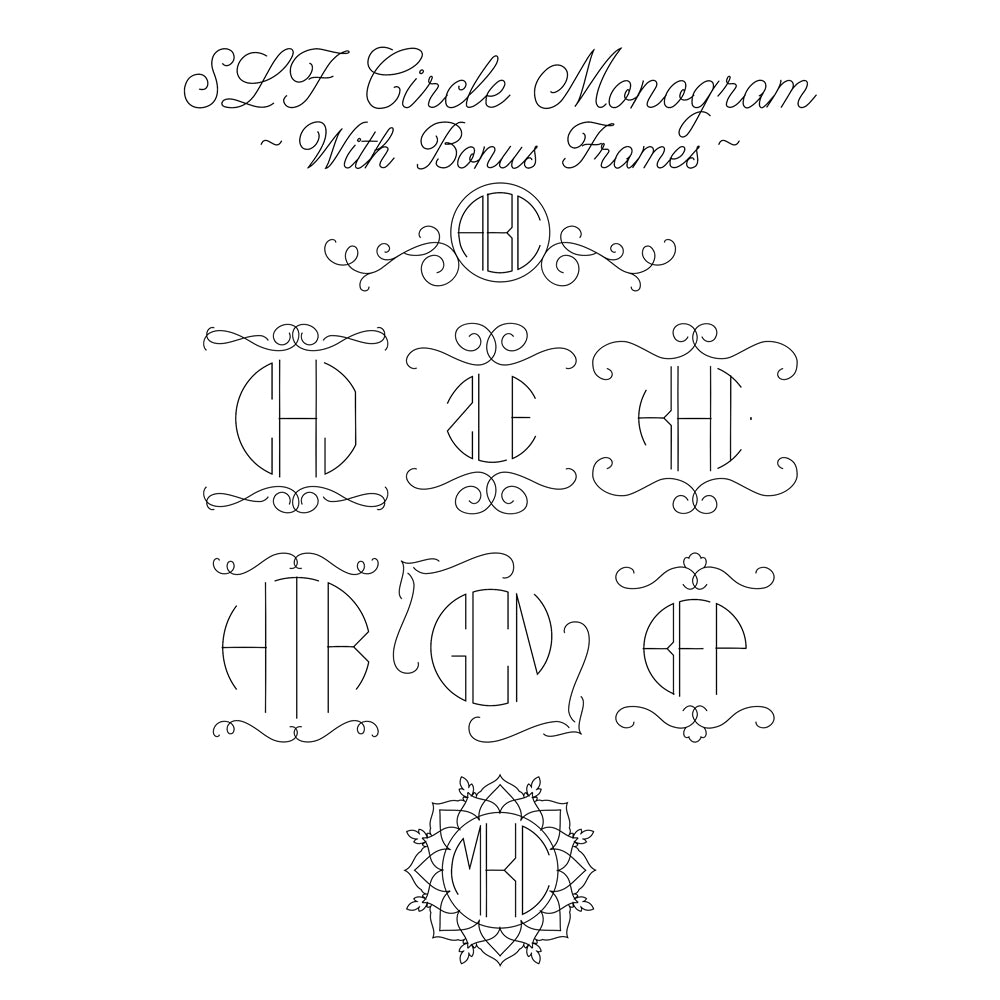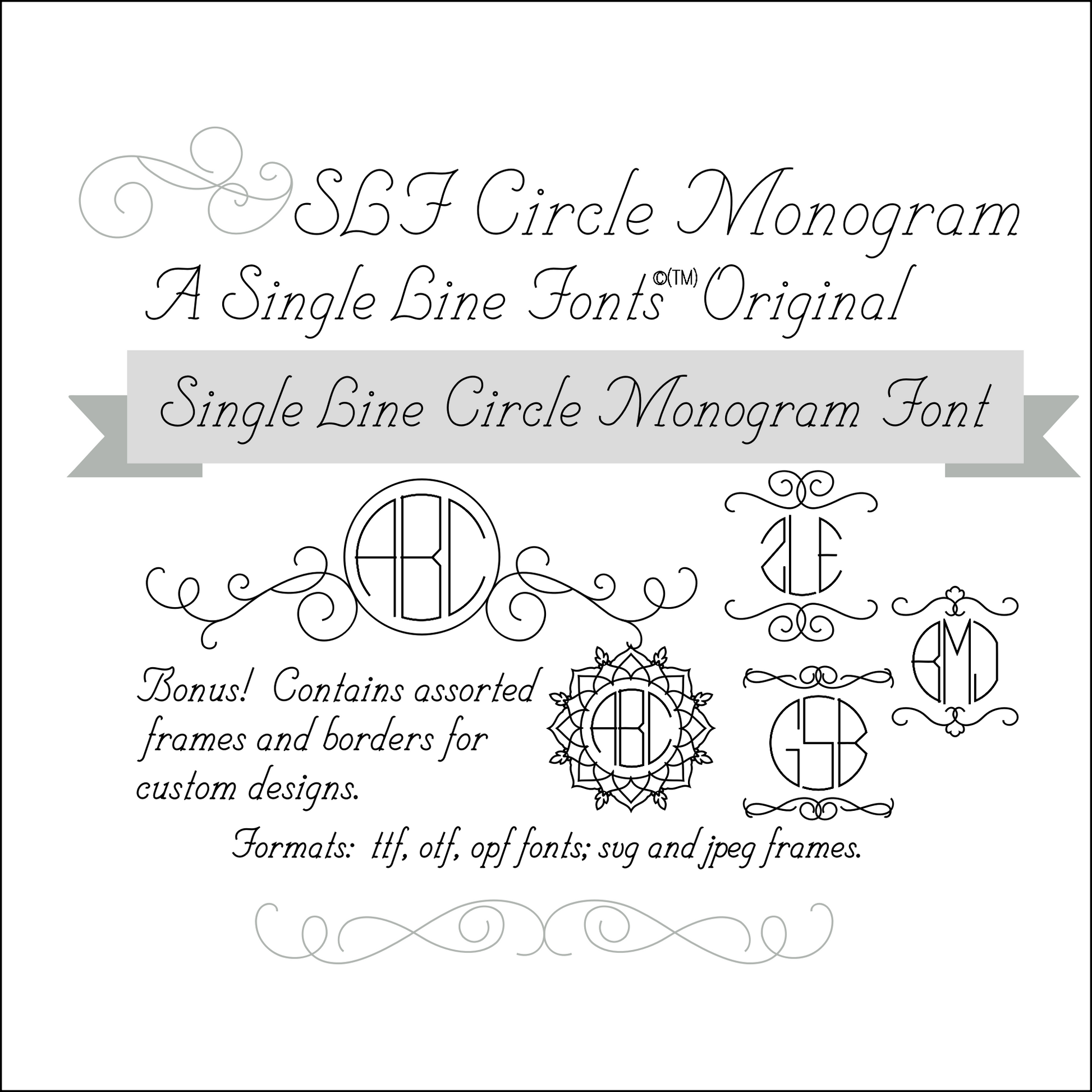
SLF Circle Monogram – Personalized 3-Letter Single Line Font with Bonus Frames
SLF Circle Monogram is a handcrafted single line font designed specifically for creating custom three-letter monograms with coordinating circular frames. Instead of standard alphabetical order, this set uses a simple number/symbol substitution system to generate the third character in the monogram — making personalization easy and consistent every time.
**How to Create Your 3-Letter Monogram:**
1) Type your first and second initials.
2) Use the number/symbol substitution chart (included) to pick the third.
3) Place inside any circular frame in the set and engrave!
• A complete set of monogram letter pairs
• Coordinating bonus circular frames for each monogram
• A substitution key to create the third letter using numbers/symbols
Whether you’re engraving jewelry, tumblers, signage, labels, or gifts, this font set gives you perfectly balanced monogram designs in one clean workflow.